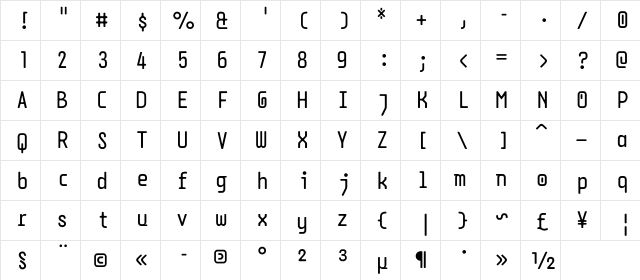
DPSDbeyond Regular
| Foundry | DBSDbeyond + backpacker.gr |
| Designer | DPSDbeyond + backpacker.gr |
Design Context for DPSDbeyond Typeface
DPSDbeyond offers clean, dependable letterforms without strong stylistic allegiance, making it a practical choice for designers who need flexibility.